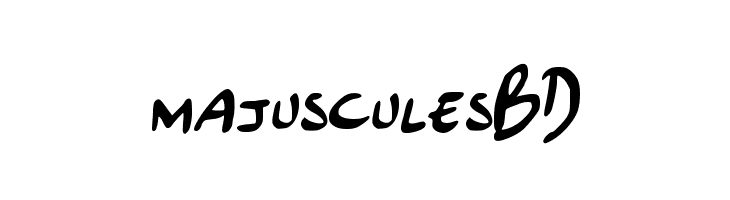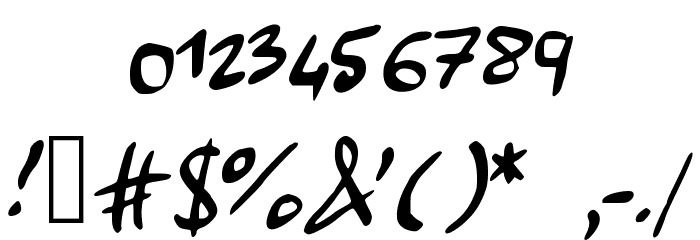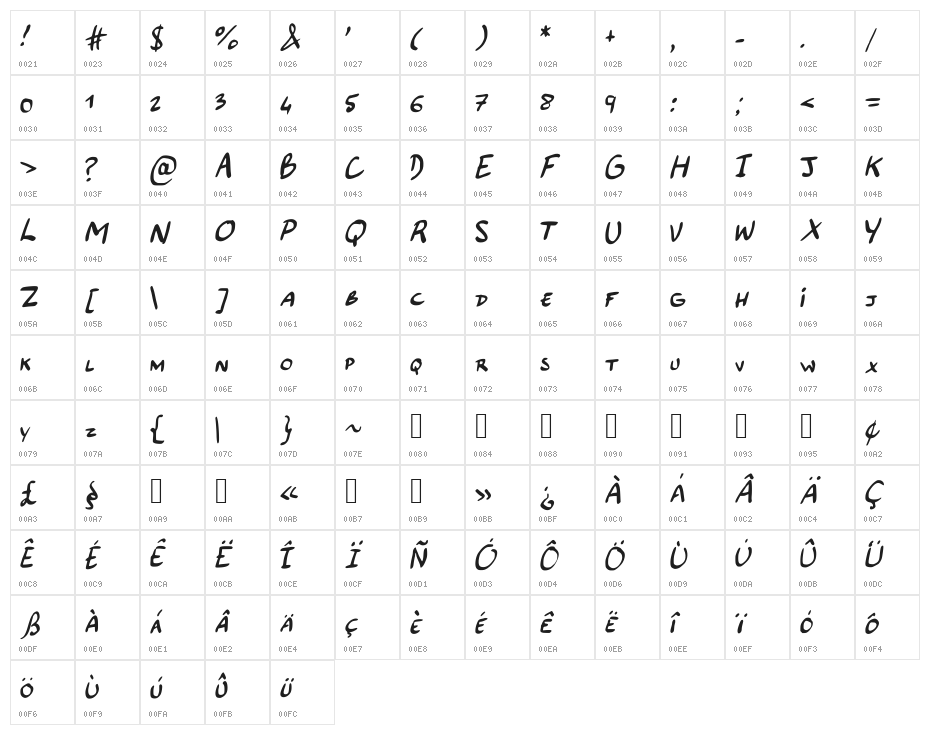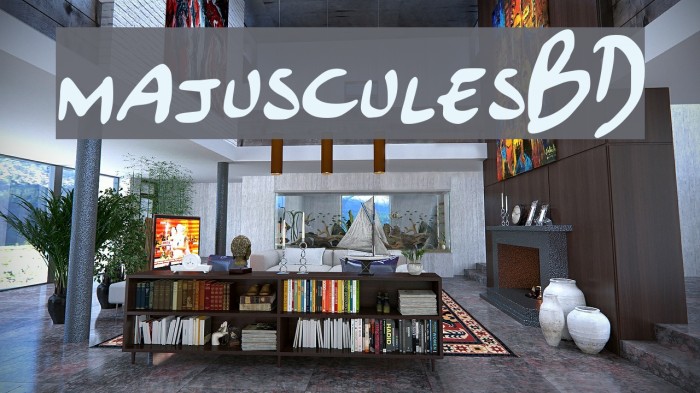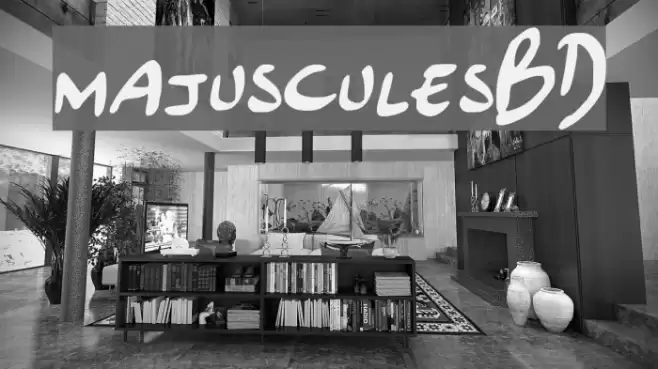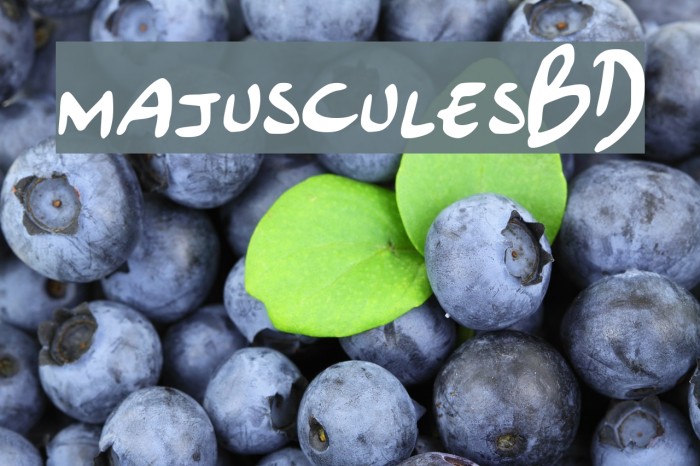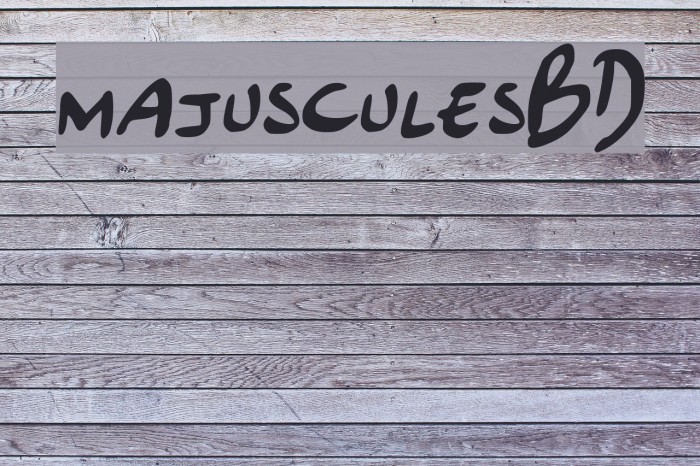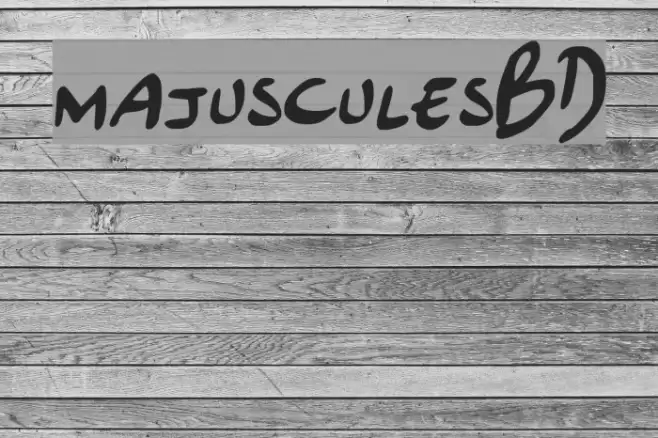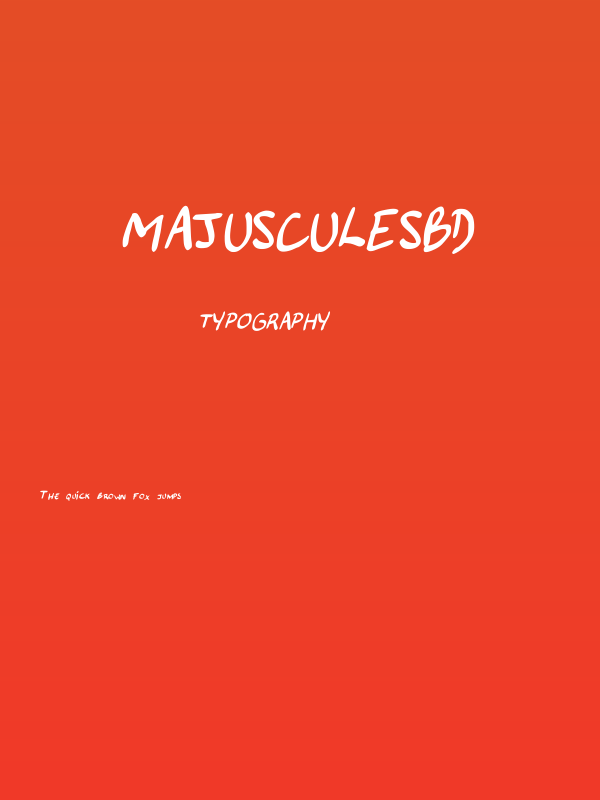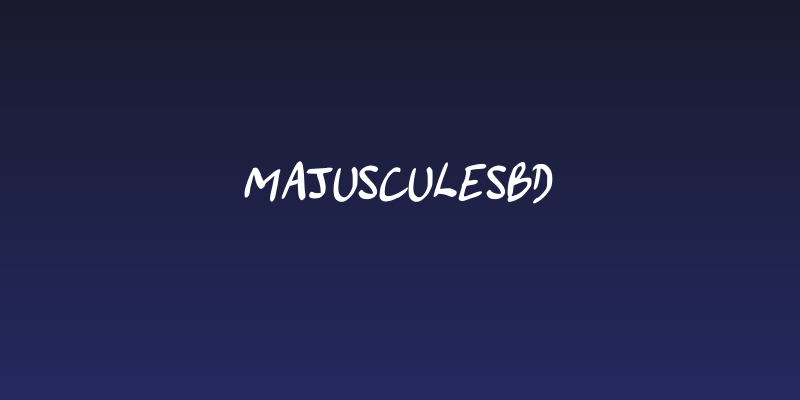
majusculesBD Font
majusculesBD Description
This font features a bold, handwritten style with a playful and dynamic appearance. The letters are slightly slanted, giving it an informal and casual feel. The strokes are thick and consistent, with a smooth flow that mimics natural handwriting. The uppercase and lowercase letters maintain a cohesive look, while the numerals and special characters are designed to match the overall aesthetic. This font is ideal for projects that require a personal touch, such as invitations, greeting cards, or creative branding materials.
| Proposed Projects | Ideal for invitations, greeting cards, creative branding, and personal projects. |